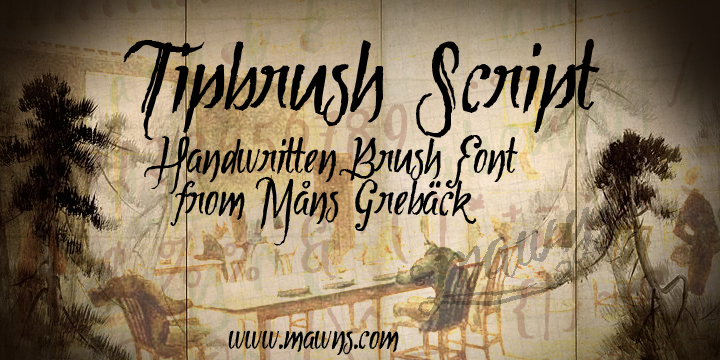
Tipbrush Script 2 by Måns Grebäck is a free energetic brush script. Its tall, restless letters combine sharp changes in stroke width with dry, scraped edges and long sweeping joins, and narrow forms rise and dip at visibly uneven angles.
Theatrical fashion branding can use its dramatic silhouettes, while punk and horror music posters draw on the torn ink texture and crowded movement. It also suits album covers, festival graphics, and drink packaging since all of these settings can treat the lettering as part of the artwork rather than a neutral caption.